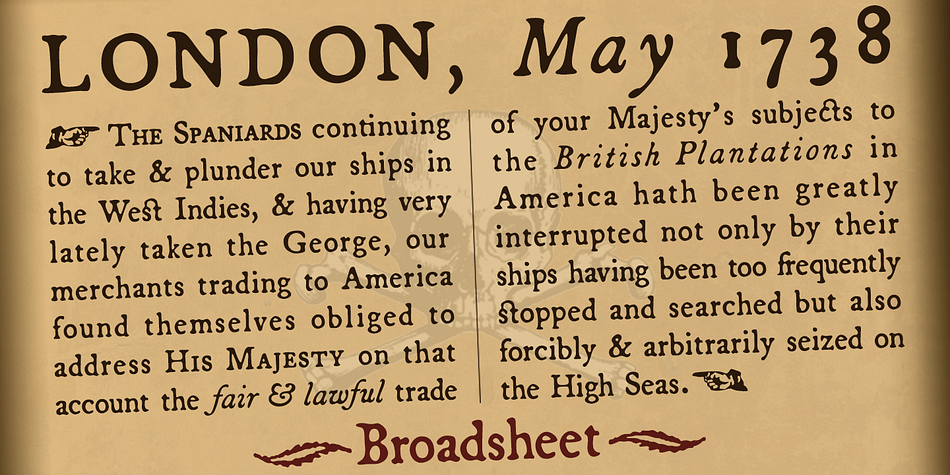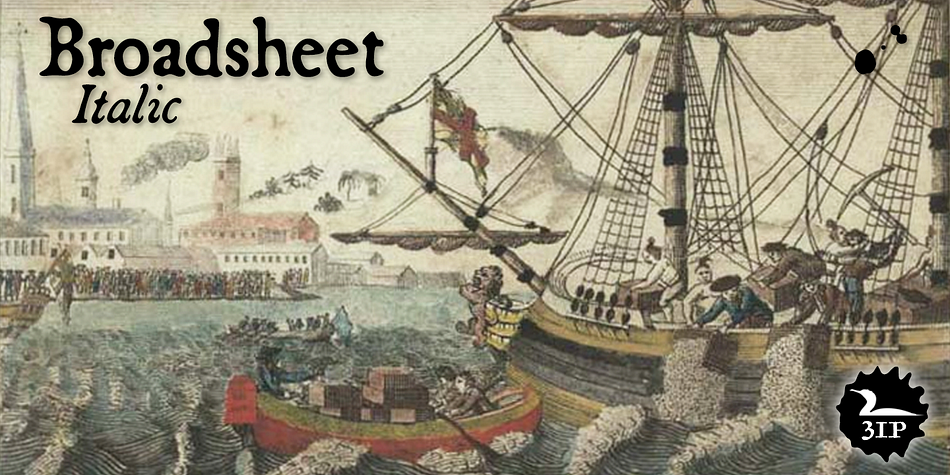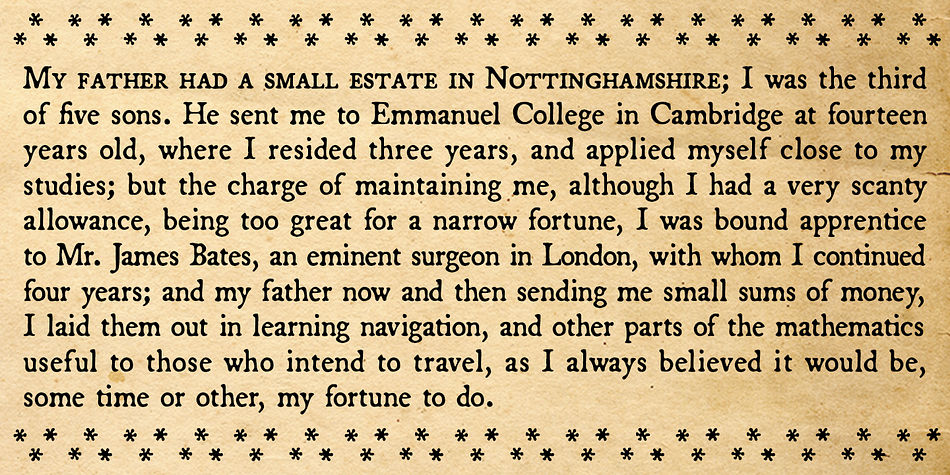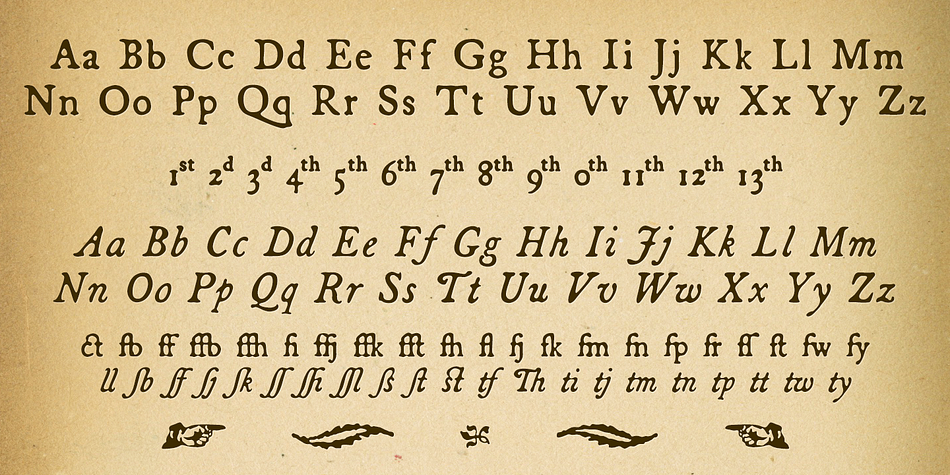
Broadsheet is a historical font family. This typeface has two styles and was published by Three Islands Press.
Having in hand an original issue of The New-England Weekly Journal (“Containing the most Remarkable Occurrences Foreign & Domestick”) from April 8, 1728, and a commemorative reprint of the Massachusetts Sun (“Americans!—-Liberty or Death!—-Join or Die!”), from May 3, 1775, I set to work. The result: a full-featured font family that simulates the type on printed matter from the Colonial American period. Broadsheet gives you all the double-s ligatures you could ever dream of. Looks implausibly authentic in either display type or long blocks of body copy. You’ll even find a couple printer’s flourishes here. The Broadsheet family has roman and true italic styles; OpenType features include true small capitals, old-style and lining figures, numerous ligatures, and Central/Eastern European alphabets.